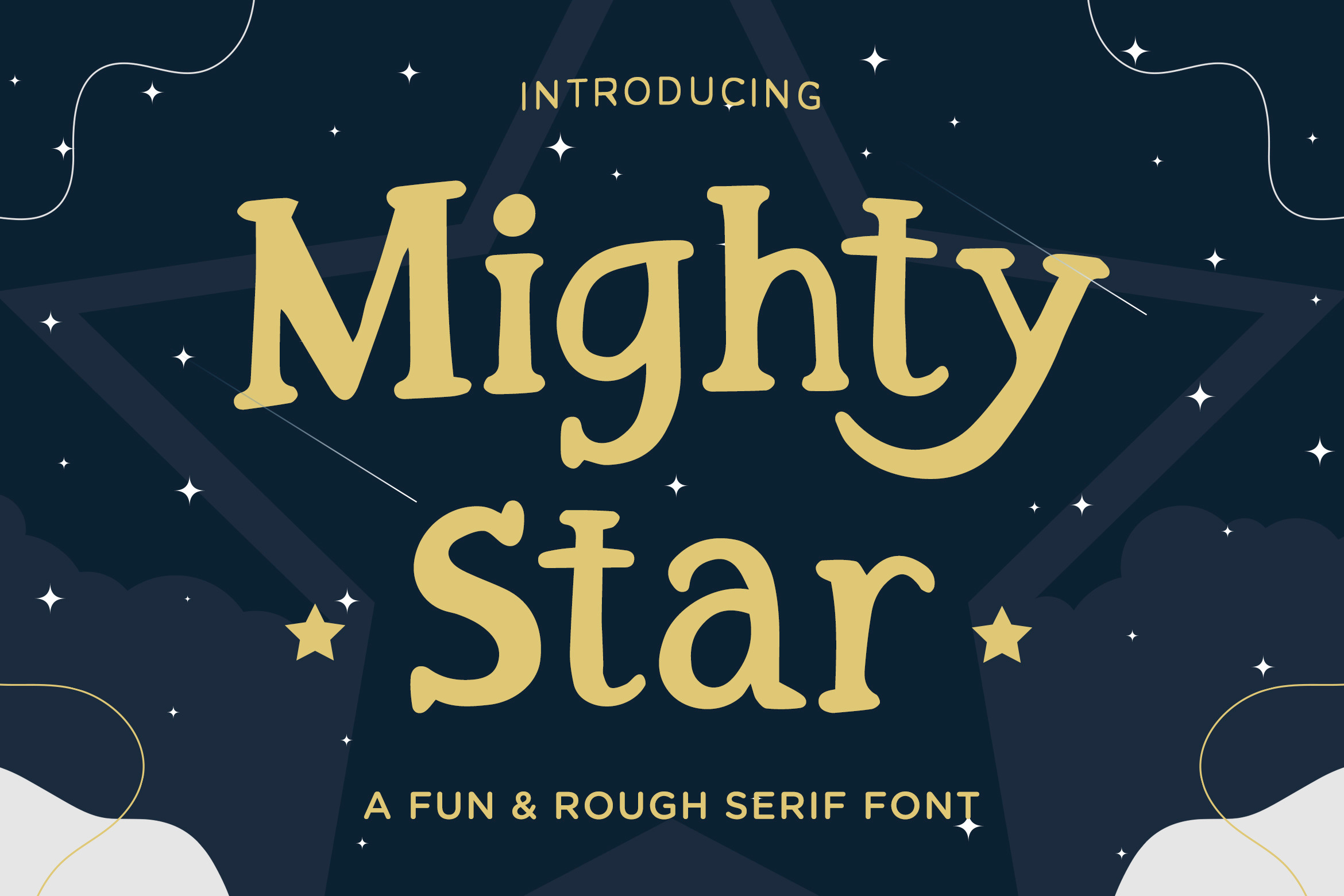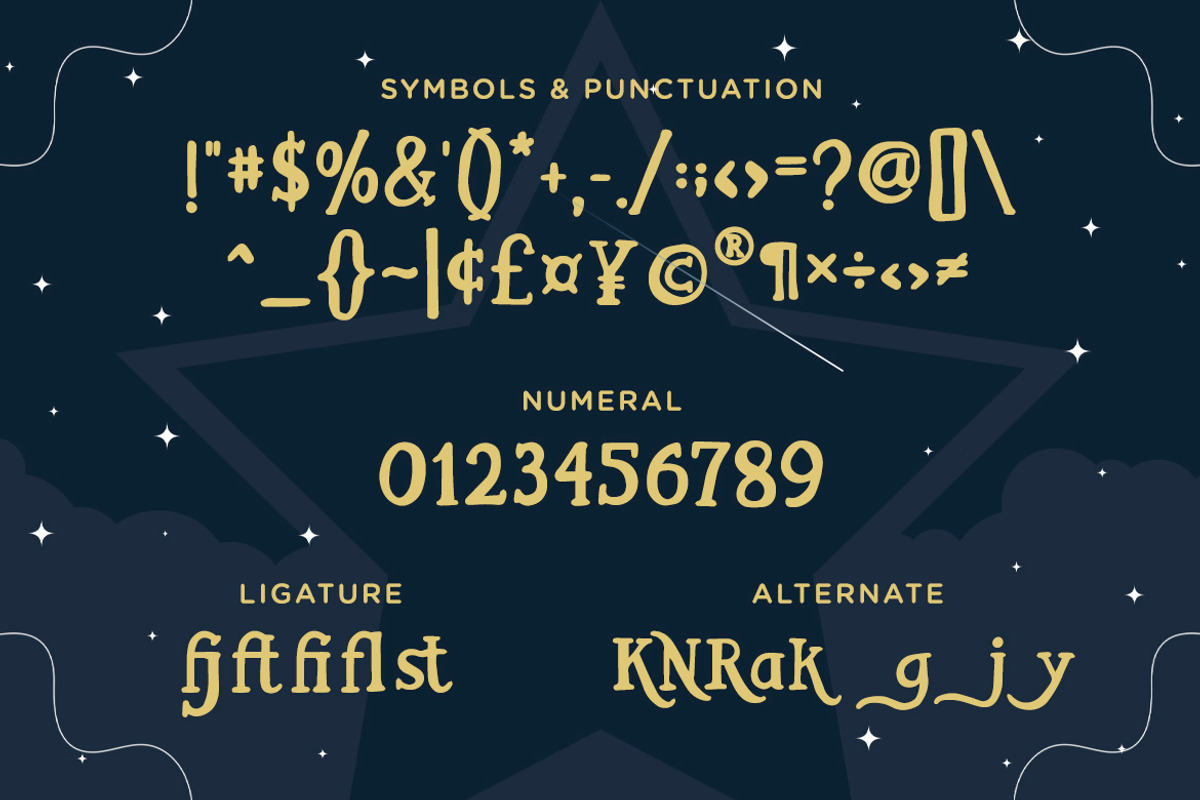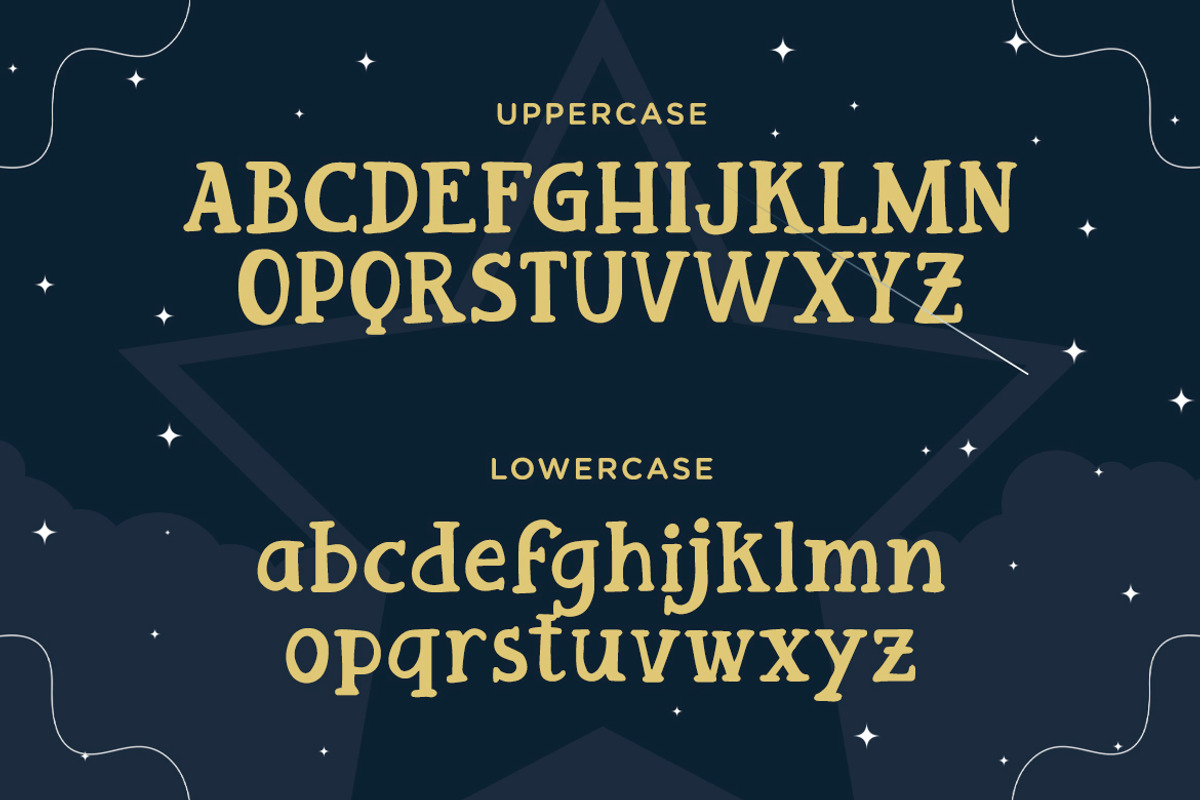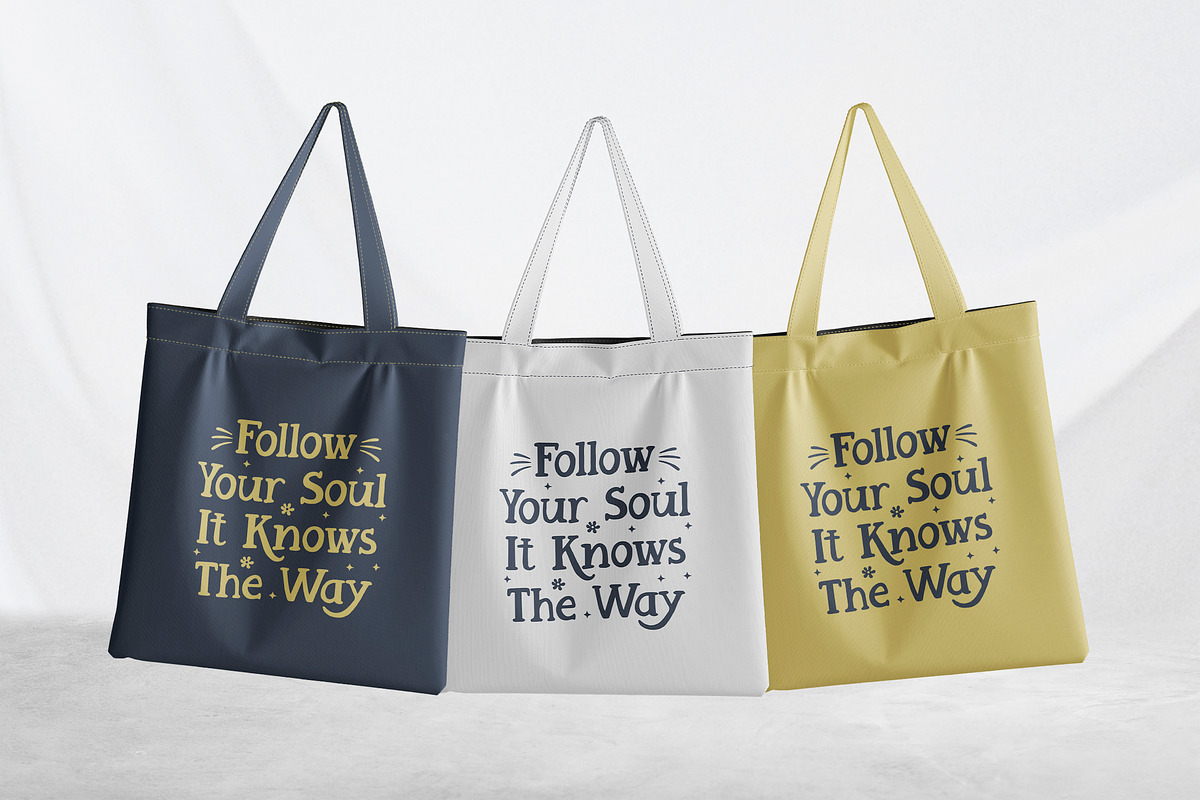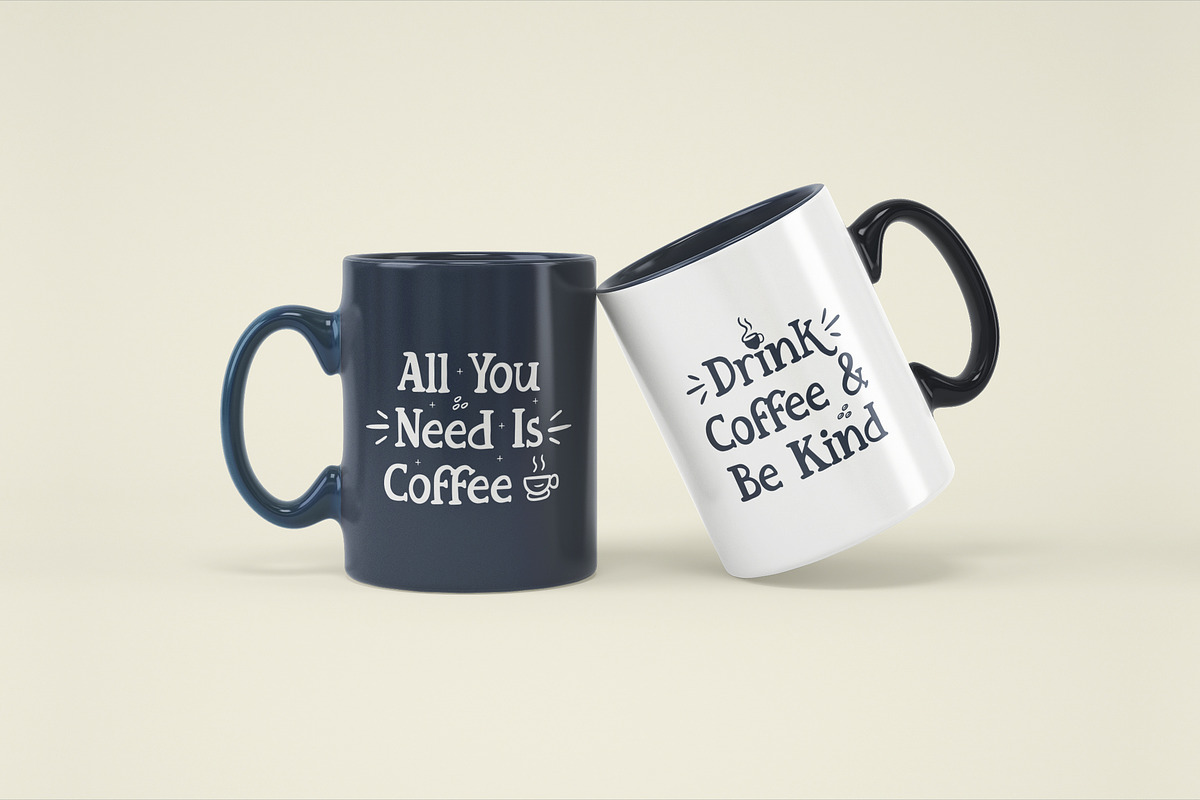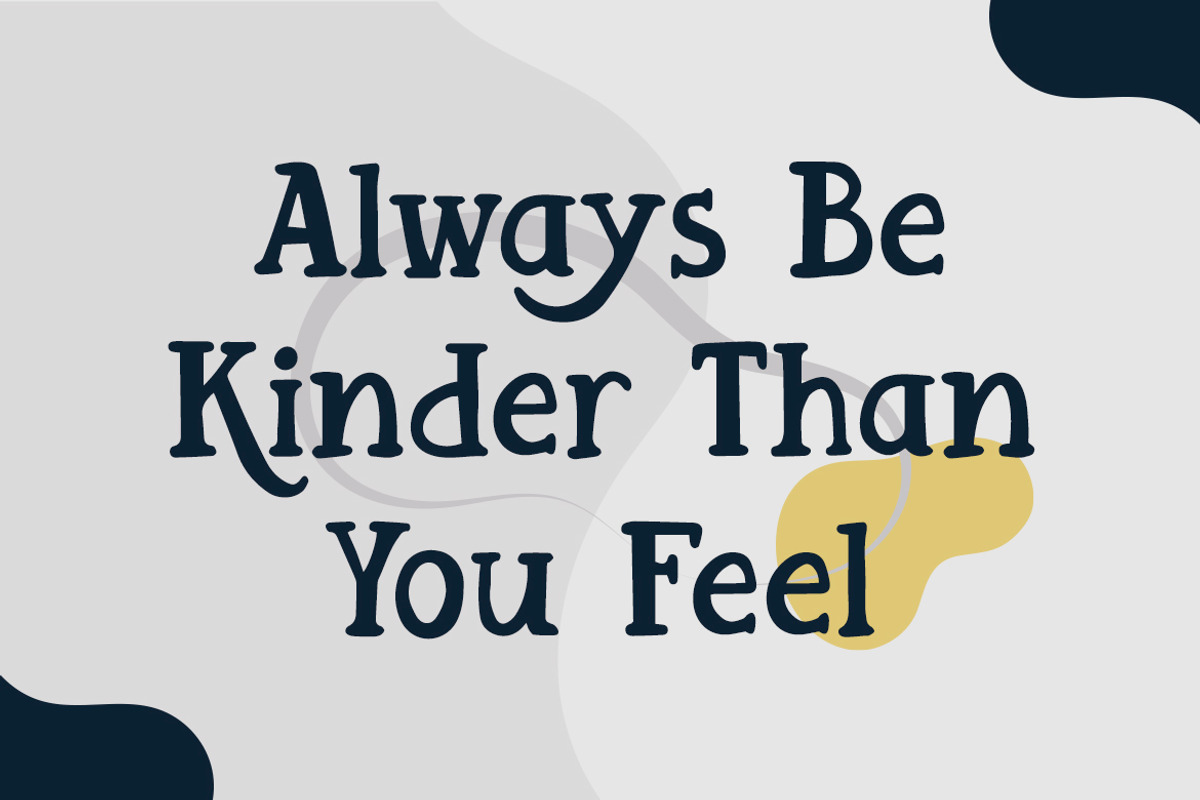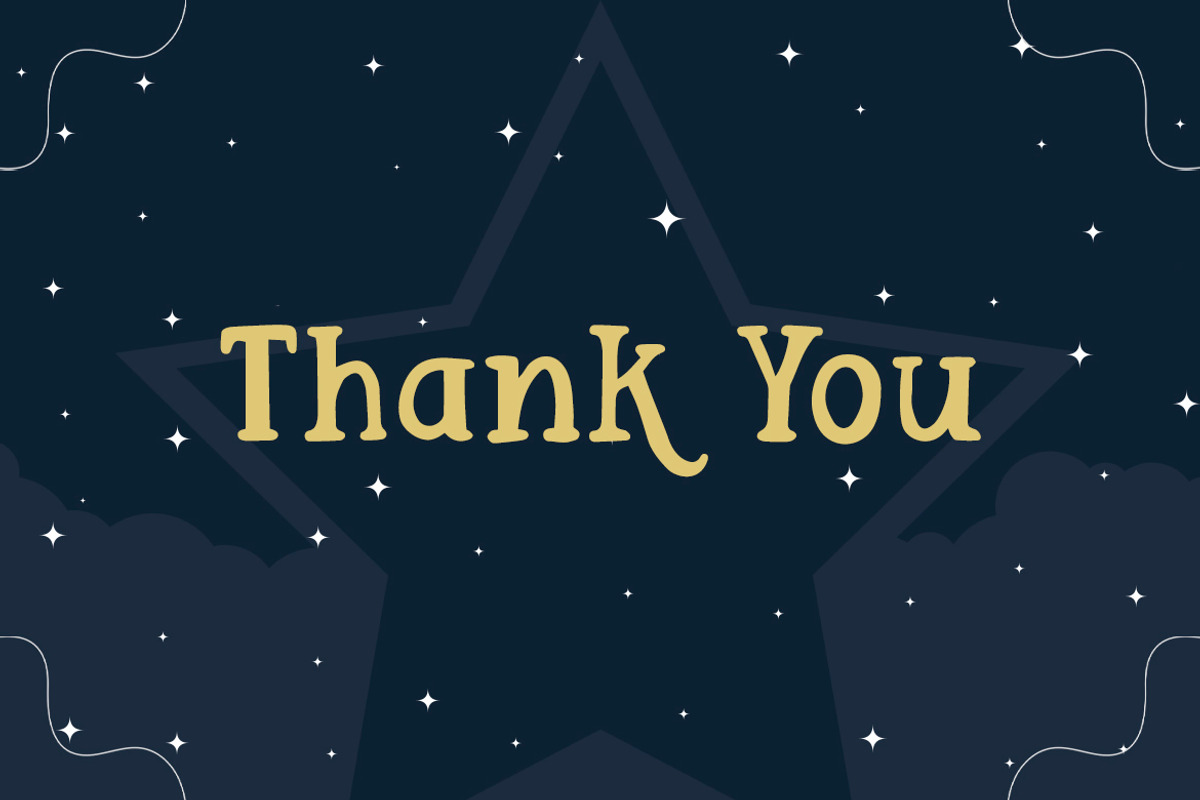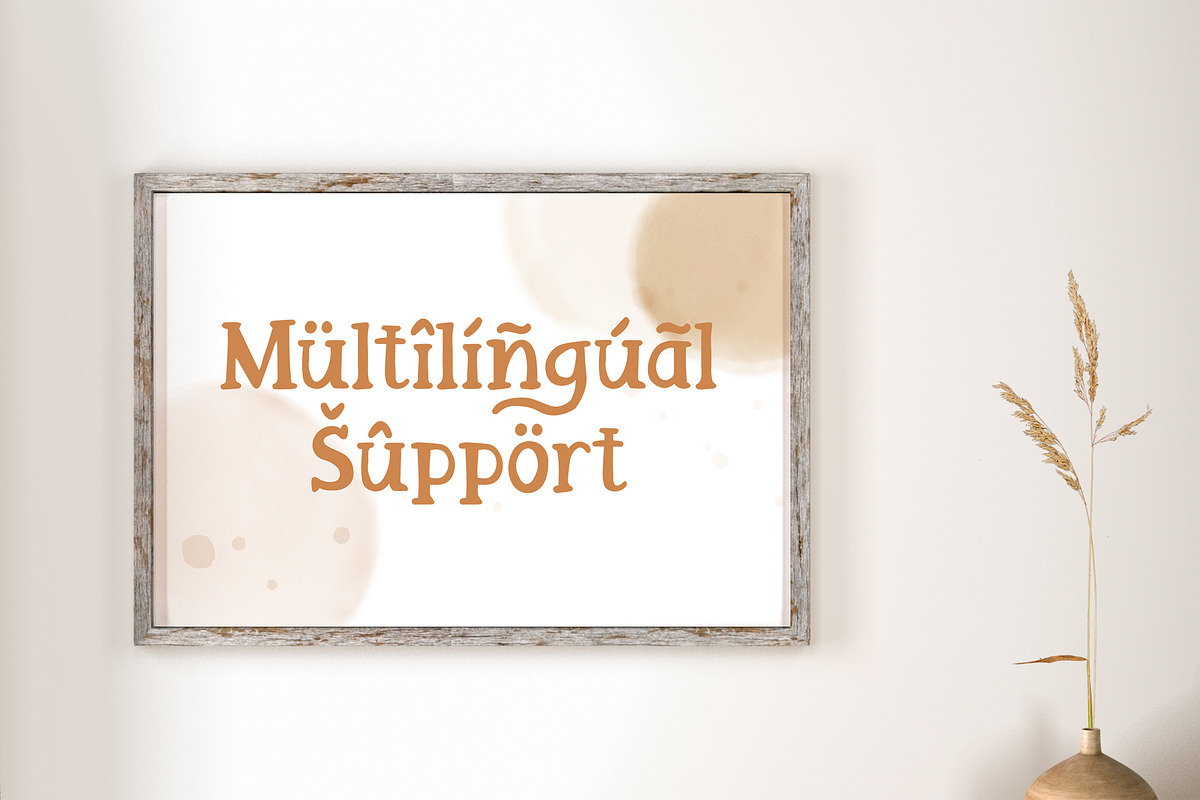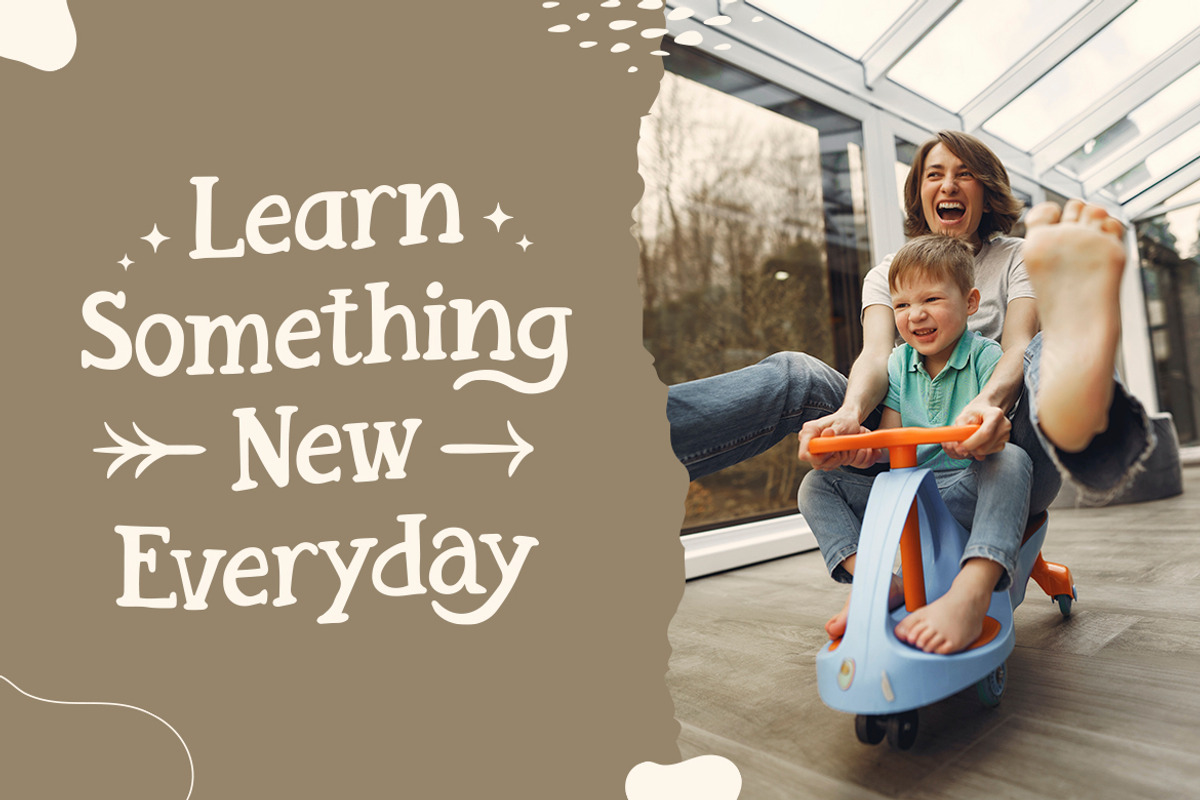
Mighty Star - Fun & Rough Serif Font
Mighty Star is a fun and rough serif font useful for a wide variety of designs, its charming look will definitely make your crafts more fabulous! Great for your personal needs, promotional projects, gifts, scrapbooks, printing, and much more.
- Symbols & Punctuation
- Numeral